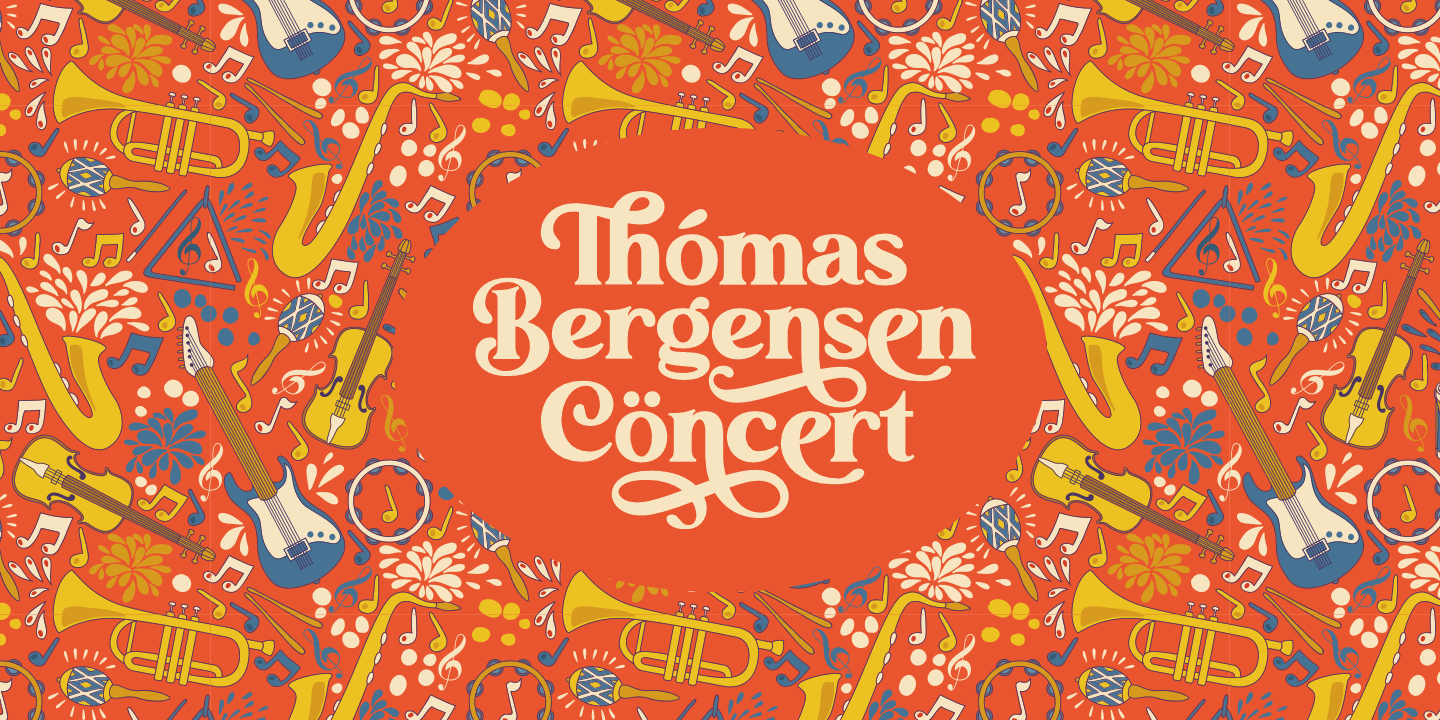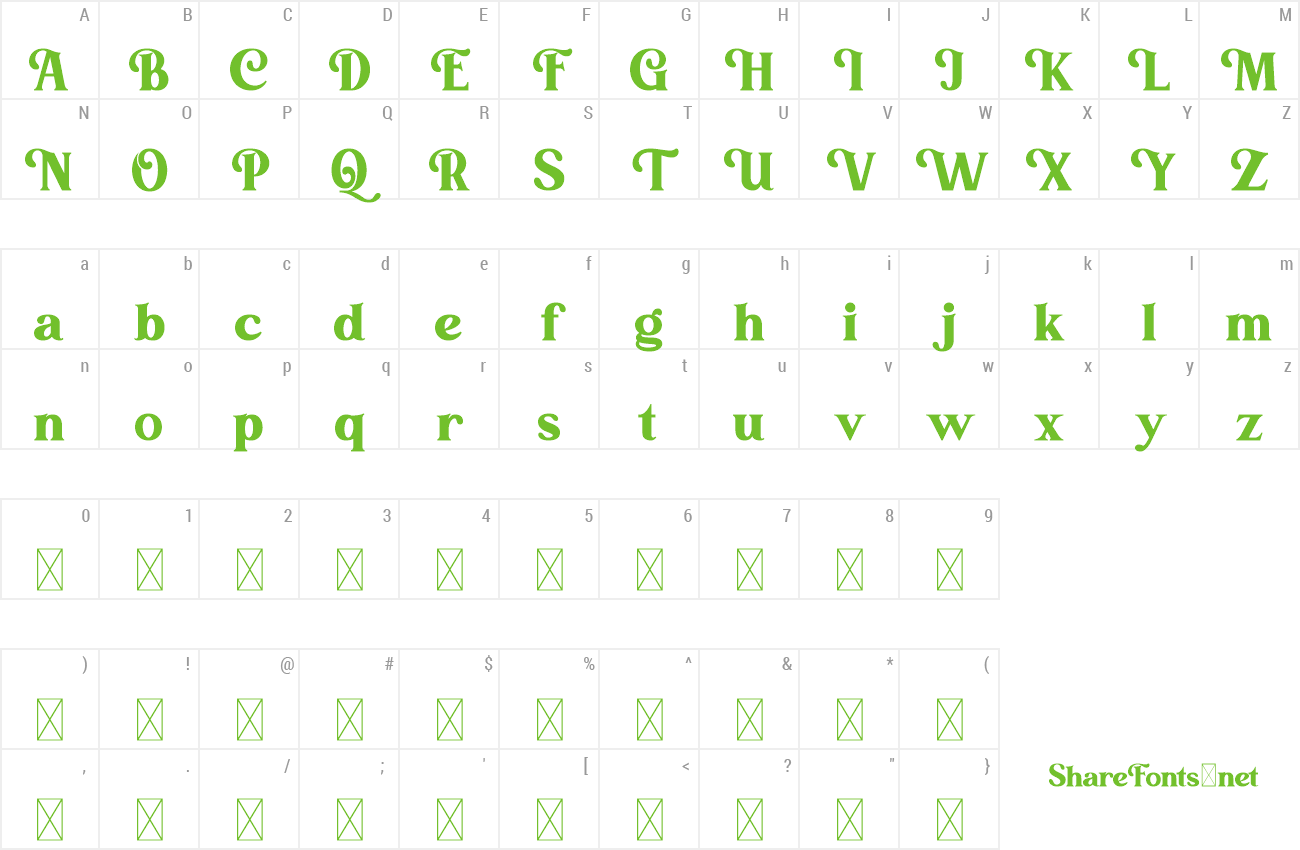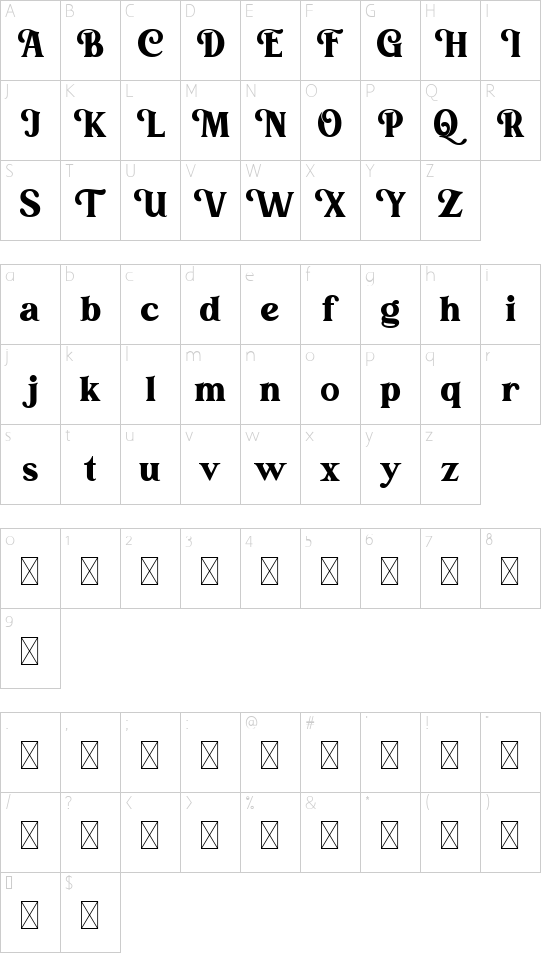
Alstoria Regular Font Free Download - Web size alstoria by bombastype in fancy > retro 252,240 downloads (87 yesterday) free for personal use download. Web alstoria is a bold display serif font. Suitable for your projects like branding, packaging, printing, header, and many.
Suitable for your projects like branding, packaging, printing, header, and many. Web size alstoria by bombastype in fancy > retro 252,240 downloads (87 yesterday) free for personal use download. Web alstoria is a bold display serif font.
Web size alstoria by bombastype in fancy > retro 252,240 downloads (87 yesterday) free for personal use download. Suitable for your projects like branding, packaging, printing, header, and many. Web alstoria is a bold display serif font.
Web alstoria is a bold display serif font. Suitable for your projects like branding, packaging, printing, header, and many. Web size alstoria by bombastype in fancy > retro 252,240 downloads (87 yesterday) free for personal use download.
Suitable for your projects like branding, packaging, printing, header, and many. Web alstoria is a bold display serif font. Web size alstoria by bombastype in fancy > retro 252,240 downloads (87 yesterday) free for personal use download.
Web alstoria is a bold display serif font. Web size alstoria by bombastype in fancy > retro 252,240 downloads (87 yesterday) free for personal use download. Suitable for your projects like branding, packaging, printing, header, and many.
Web size alstoria by bombastype in fancy > retro 252,240 downloads (87 yesterday) free for personal use download. Suitable for your projects like branding, packaging, printing, header, and many. Web alstoria is a bold display serif font.
Web alstoria is a bold display serif font. Web size alstoria by bombastype in fancy > retro 252,240 downloads (87 yesterday) free for personal use download. Suitable for your projects like branding, packaging, printing, header, and many.
Suitable for your projects like branding, packaging, printing, header, and many. Web size alstoria by bombastype in fancy > retro 252,240 downloads (87 yesterday) free for personal use download. Web alstoria is a bold display serif font.
Web size alstoria by bombastype in fancy > retro 252,240 downloads (87 yesterday) free for personal use download. Web alstoria is a bold display serif font. Suitable for your projects like branding, packaging, printing, header, and many.
Suitable for your projects like branding, packaging, printing, header, and many. Web alstoria is a bold display serif font. Web size alstoria by bombastype in fancy > retro 252,240 downloads (87 yesterday) free for personal use download.
Suitable for your projects like branding, packaging, printing, header, and many. Web size alstoria by bombastype in fancy > retro 252,240 downloads (87 yesterday) free for personal use download. Web alstoria is a bold display serif font.
Web alstoria is a bold display serif font. Web size alstoria by bombastype in fancy > retro 252,240 downloads (87 yesterday) free for personal use download. Suitable for your projects like branding, packaging, printing, header, and many.
Web Alstoria Is A Bold Display Serif Font.
Suitable for your projects like branding, packaging, printing, header, and many. Web size alstoria by bombastype in fancy > retro 252,240 downloads (87 yesterday) free for personal use download.